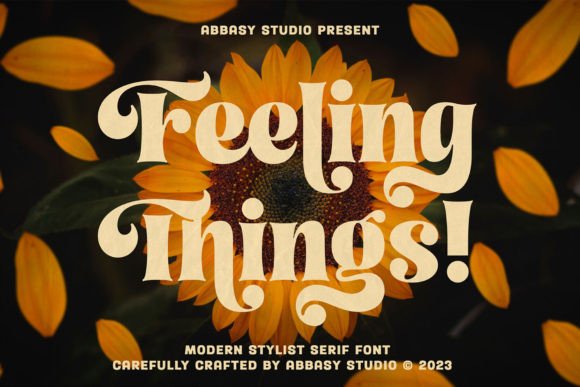
The Retro Revival: Discovering the Charm of Feeling Things Font
I’ll never forget the design project that led me to Feeling Things font. I was working on a logo for a vintage-inspired fashion brand, and I was on a mission to find the perfect typeface that would transport their customers back to the groovy 70s. Hours turned into days, and days into weeks, as I scrolled through font after font, but nothing seemed quite right. That was until I stumbled upon Feeling Things – a modern Serif font with retro vibes that instantly captured the essence of the era.
A Love Affair with Feeling Things
So, what makes Feeling Things so special? Let’s dive into the good stuff! 😊
- ✨ Retro charm: Feeling Things effortlessly blends modern sensibilities with classic 70s typography, making it perfect for designs that need a nostalgic touch.
- ✅ Versatility: This font is incredibly versatile, suitable for a wide range of projects, from logos and invitations to magazines, books, and even packaging.
- 💫 Elegant serifs: The subtle serifs add a touch of sophistication, making Feeling Things ideal for high-end branding, fashion, and beauty projects.
The Not-So-Perfect Truth
While Feeling Things is an amazing font, it’s not without its quirks. Here are a few things to keep in mind:
- 🤔 Limited use in body text: Due to its elegant serifs and retro flair, Feeling Things might not be the best choice for lengthy body text. It’s better suited for headlines, titles, and short paragraphs.
- ⚠️ Glyph limitations: Some users have reported that the font may not have an extensive range of glyphs, which could limit its use in certain projects.
- Experiment with OpenType features like ligatures and stylistic alternates to add an extra layer of creativity to your design.
The Story Behind Feeling Things
Feeling Things was inspired by the iconic typography designs of the 1970s. The font’s creator, a talented type designer, wanted to capture the essence of the era’s retro charm and bring it into the modern age. The result is a font that’s both nostalgic and fresh, perfect for designers looking to add a touch of vintage flair to their projects.
| Font Name | Feeling Things Font |
| Author | abbasystudio |
| What makes Feeling Things unique? | Feeling Things is a modern Serif font with retro vibes, inspired by 70s typography designs. Its elegant serifs and vintage charm make it perfect for designs that need a nostalgic touch. |
| Is Feeling Things suitable for body text? | While Feeling Things is an elegant font, it’s better suited for headlines, titles, and short paragraphs. For lengthy body text, you may want to consider a more traditional serif font. |